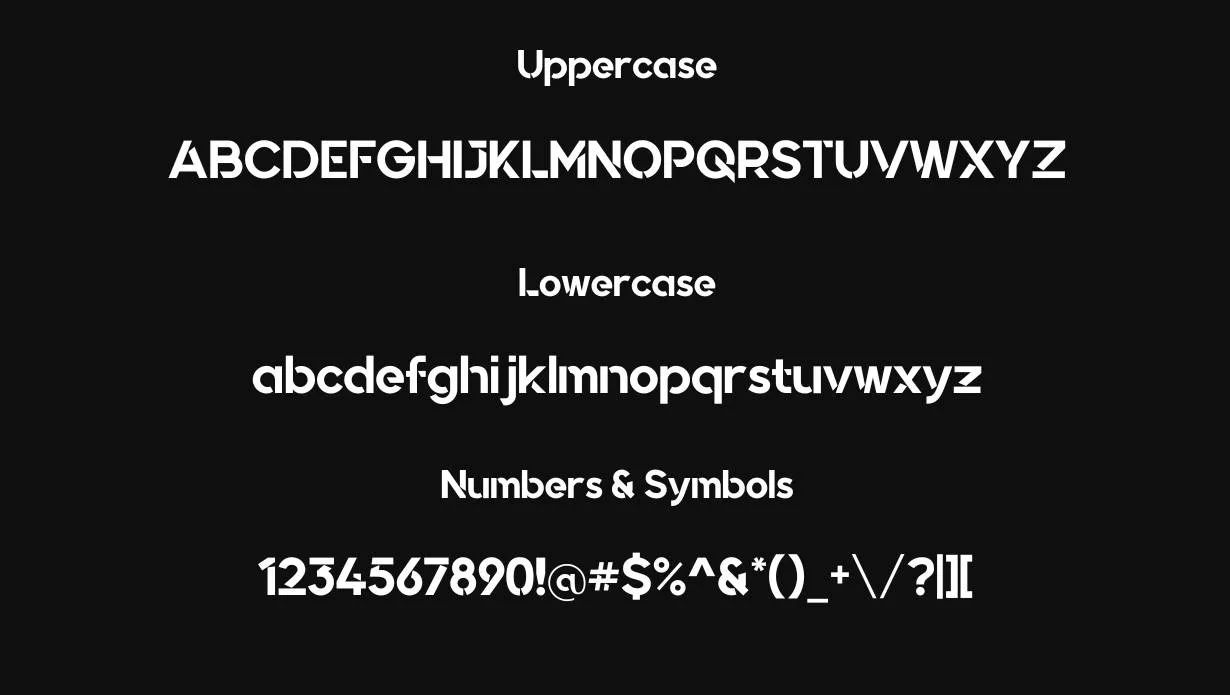
In the world of modernity, Quantify Font stands tall and sleek. This typeface is a testament to precision and contemporary design, boasting clean lines that give your text a polished and organized appearance.
Perfect for projects that demand a modern and sophisticated look, Quantify Font ensures your message is clear and stylish. Combining this typeface with the Candle Script font opens up the potential to create stunning displays.